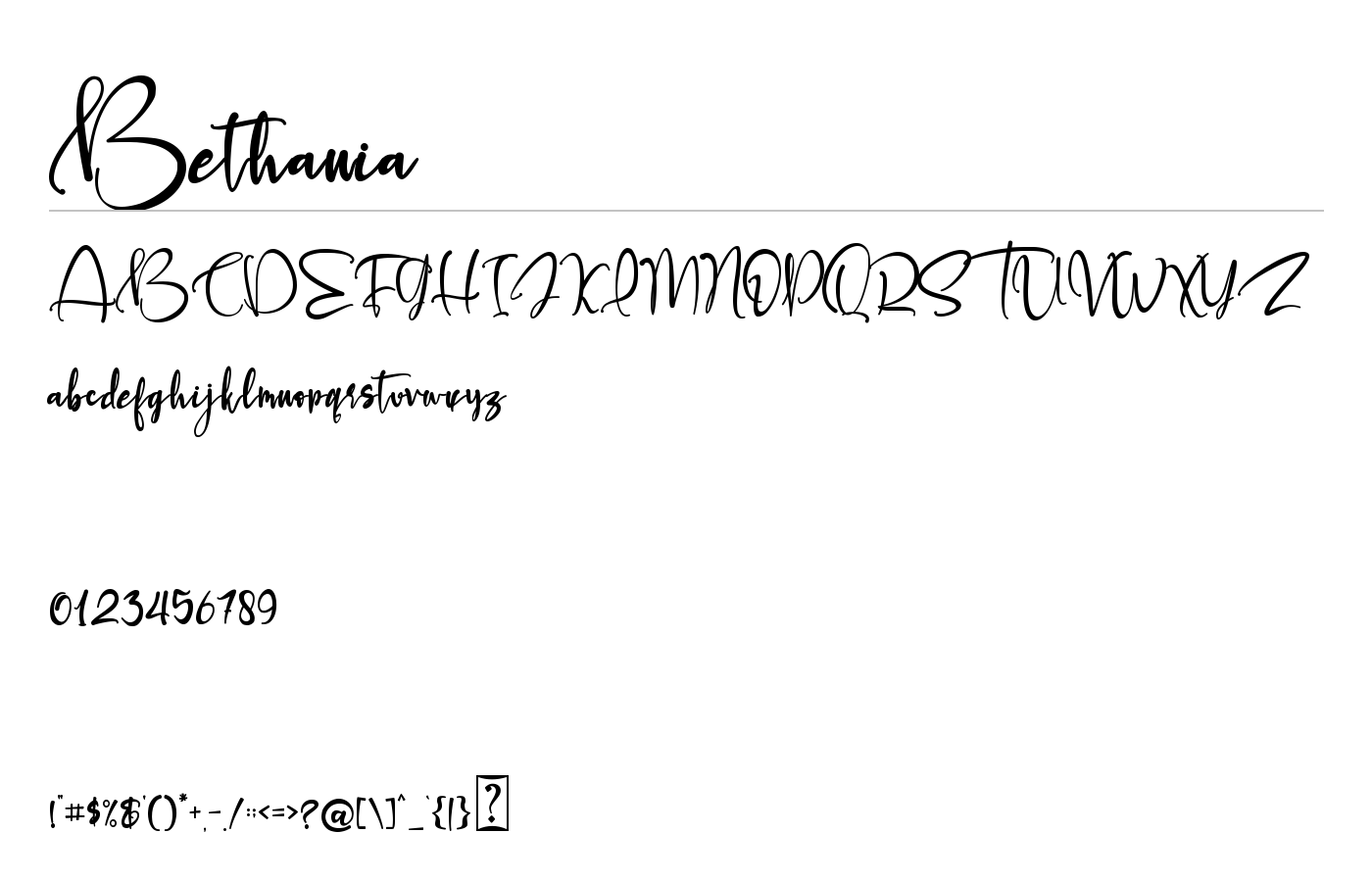
Bethania is a playful and elegant script font with a handwritten feel, featuring smooth, flowing strokes and lively, slightly irregular letterforms that add personality and charm. Its medium weight and balanced spacing make it perfect for creative branding, invitations, and expressive headlines where a warm and personal touch is desired. This font shines in projects that seek to convey friendliness and style with a unique, artistic flair.
Bethania Font
About Bethania Font
| Font family | Bethania Font |
| Designer | Stefani Letter |